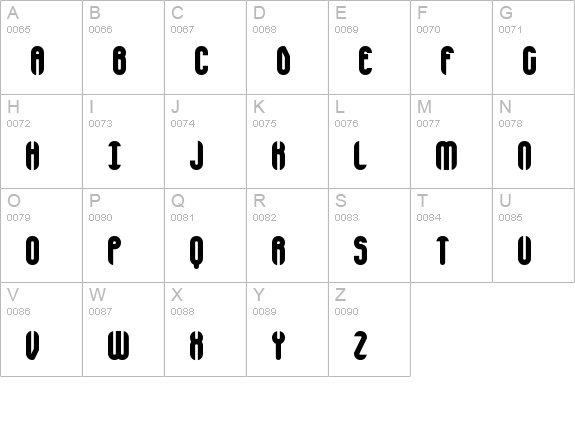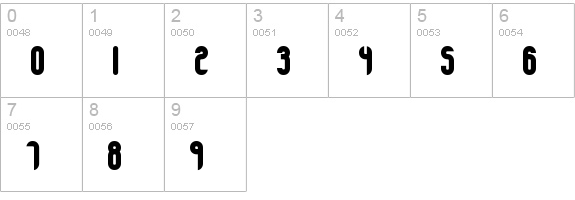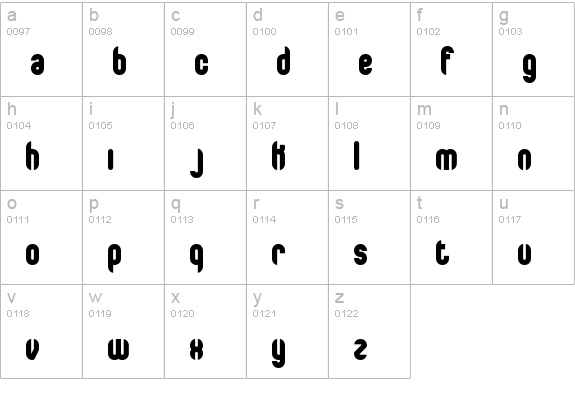
Encapsulate Plain BRK Font Details
Encapsulate Plain BRK font is a versatile and modern typeface that exudes simplicity and elegance. With its clean lines and minimalist design, this font is perfect for a wide range of design projects, from branding to web design. The font's timeless appeal makes it a great choice for both print and digital applications. The Encapsulate Plain BRK font is available for free download at FontsMarket.com, making it easily accessible for designers and creatives looking to add a touch of sophistication to their work. Whether you're working on a logo, poster, or website, this font will bring a sense of professionalism and style to your designs. Don't miss out on the opportunity to enhance your projects with the Encapsulate Plain BRK font. Download it for free today and see the difference it can make in your design work.